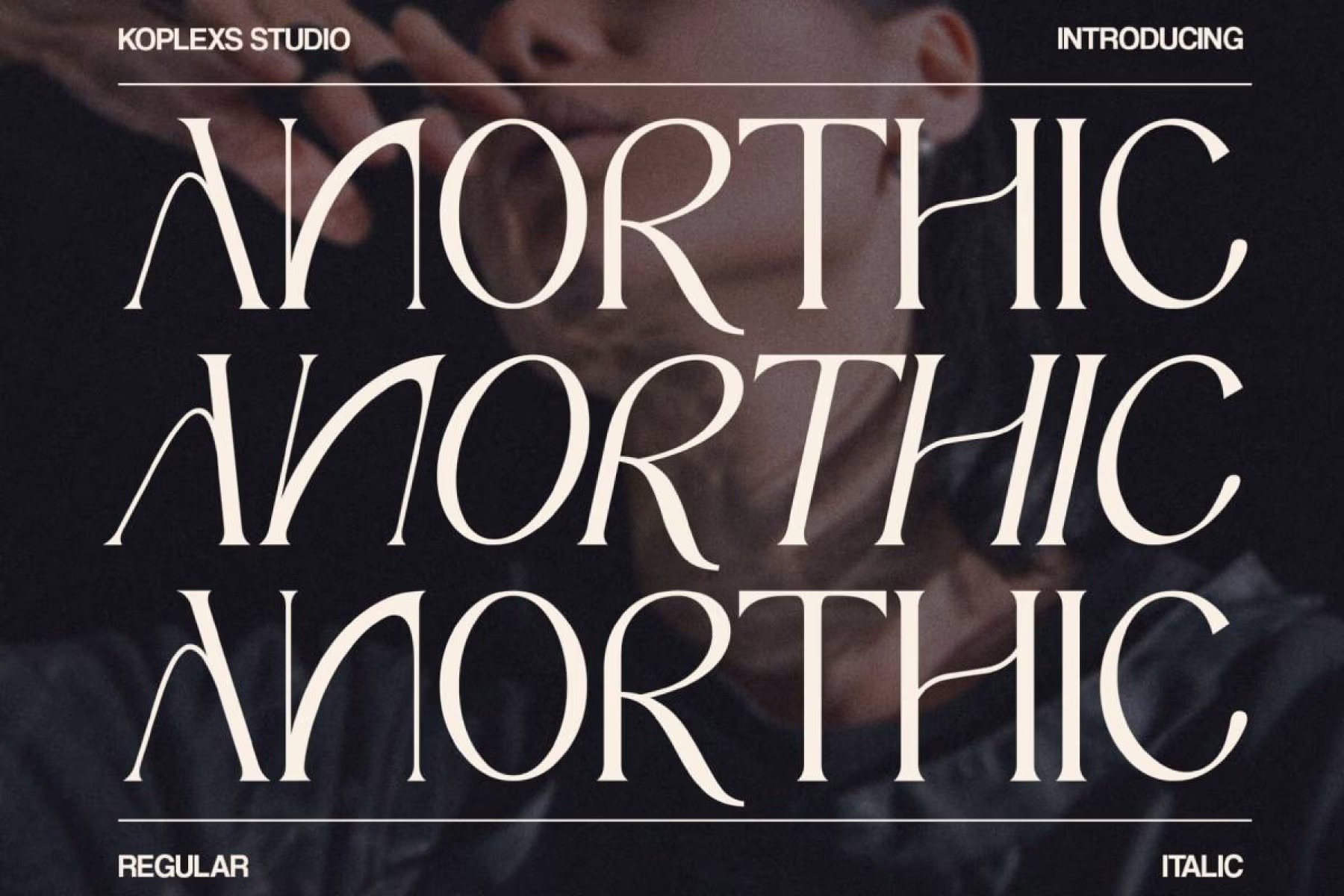
Anorthic Font
Anorthic Font is a versatile font designed to adapt beautifully across different design styles, offering dependable readability and balance. Anorthic is a modern serif font with two versatile variants: regular and italic. Its elongated serifs and distinctive letterforms create a visually striking impression, while its clear and balanced proportions ensure excellent readability. Perfect for designers who want to add a touch of sophistication and modernity to their projects.
Designer: Koplexs Studio